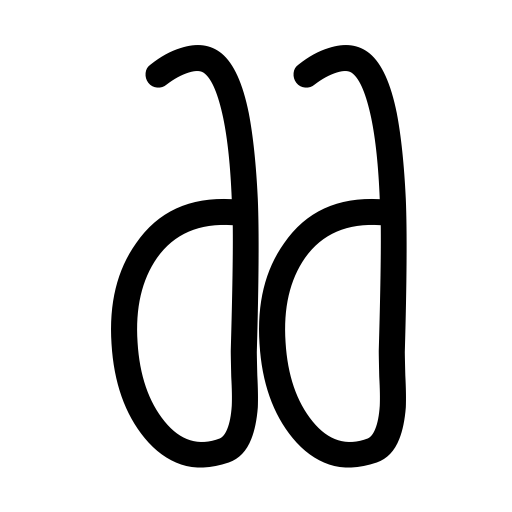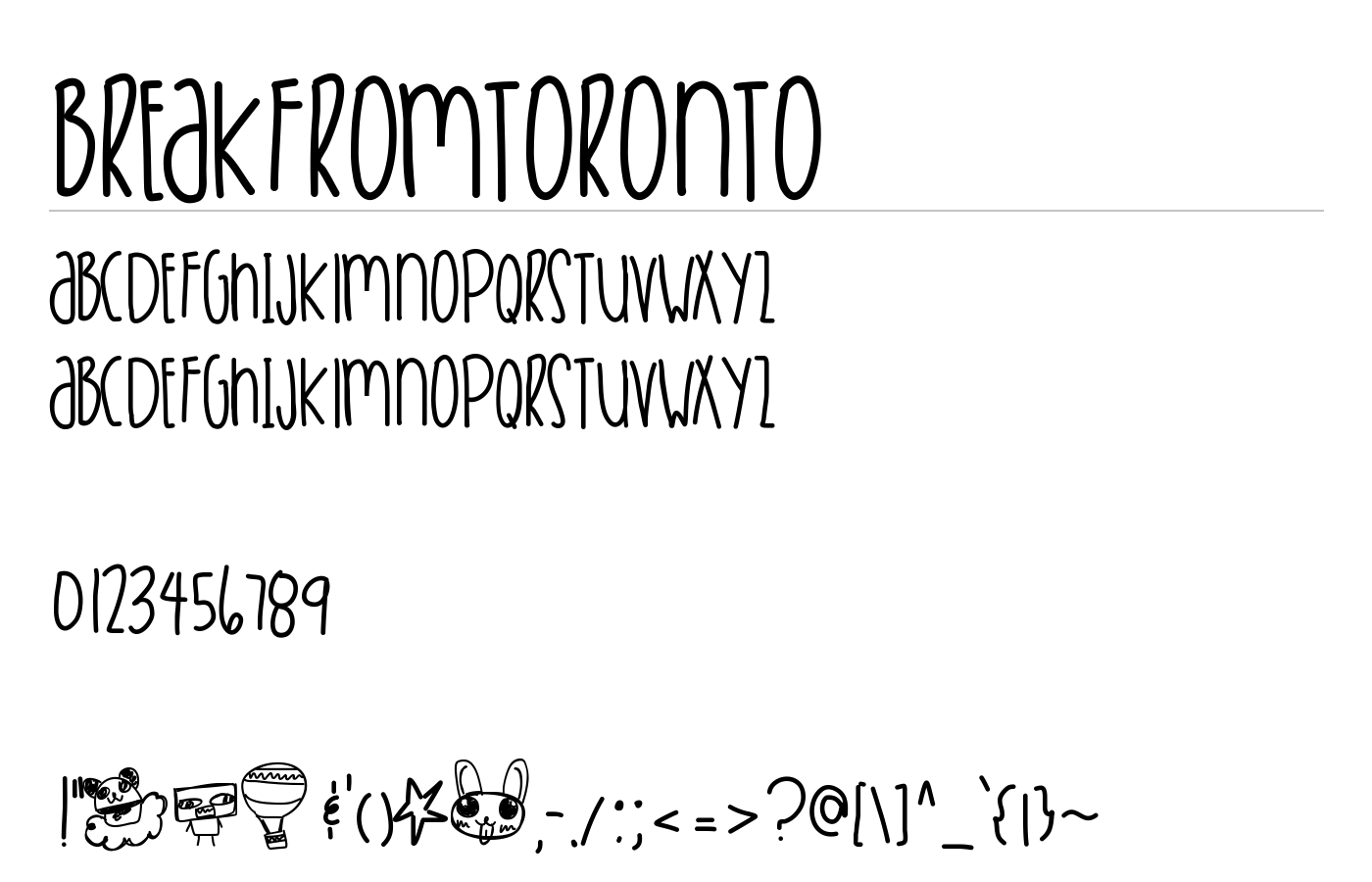
BreakFromToronto is a whimsical, handwritten sans serif font with tall, narrow letterforms and playful uneven strokes that give it a casual, friendly vibe. Its light weight and quirky characters, including charming illustrated symbols, make it perfect for creative projects, kids' materials, and informal branding that wants to convey fun and personality. This font works well in headlines, logos, and packaging where a relaxed, approachable tone is desired.
BreakFromToronto Font
About BreakFromToronto Font